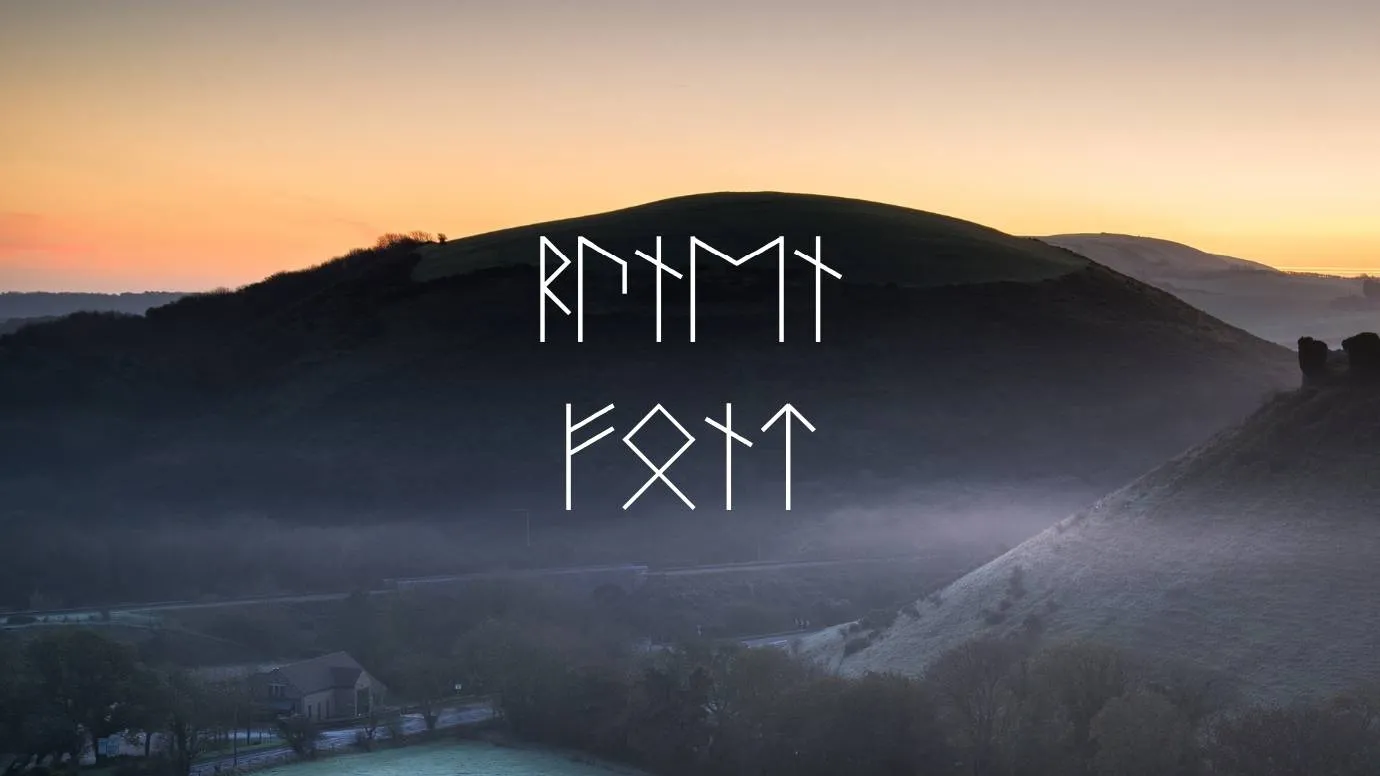
Runen Font Family comes in 2 styles and weights including Bold and Italic. It is a complete font package for creating vintage and art deco designs. High Logic Erwin Denissen was designed this elegant typeface for the first time.
This font family includes stylish 249 characters including uppercase, lowercase, basic punctuations, numbers, many alternates, ligatures, Truetype features, currency symbols, updated icons, extensive language support, and swashes.
Runen Font Family